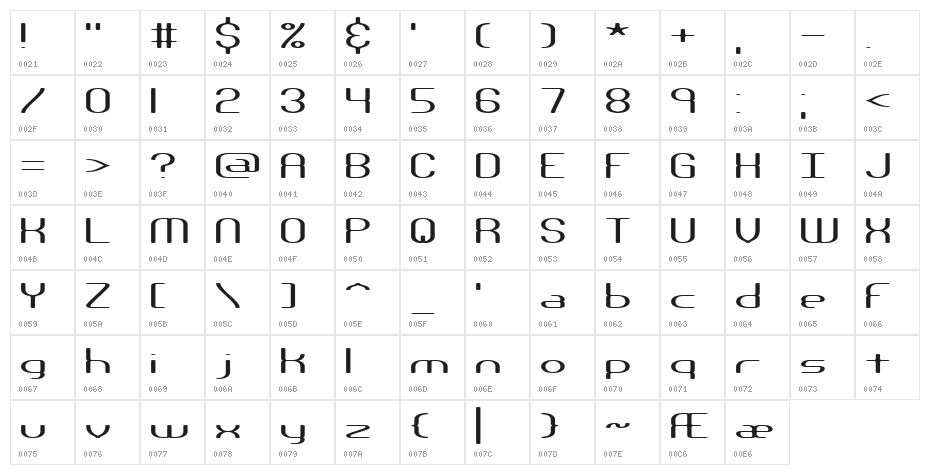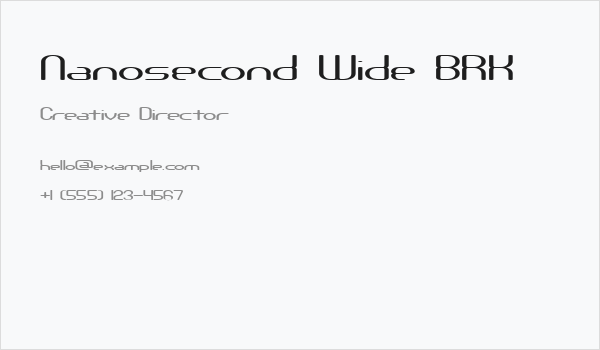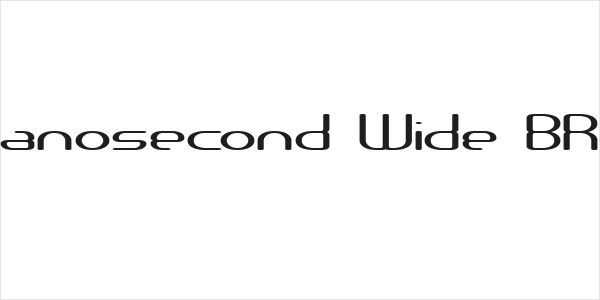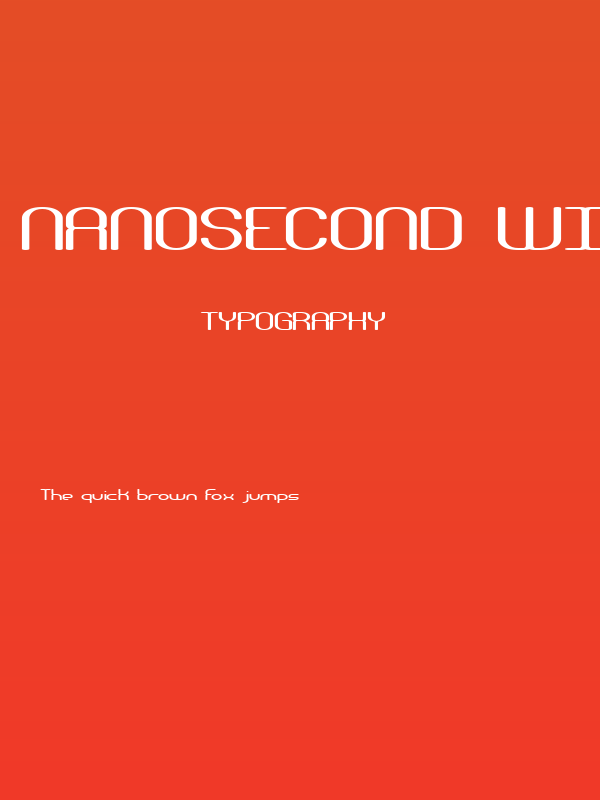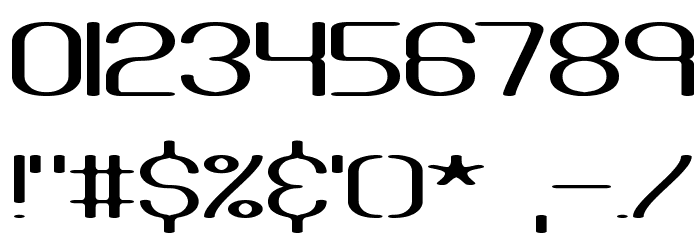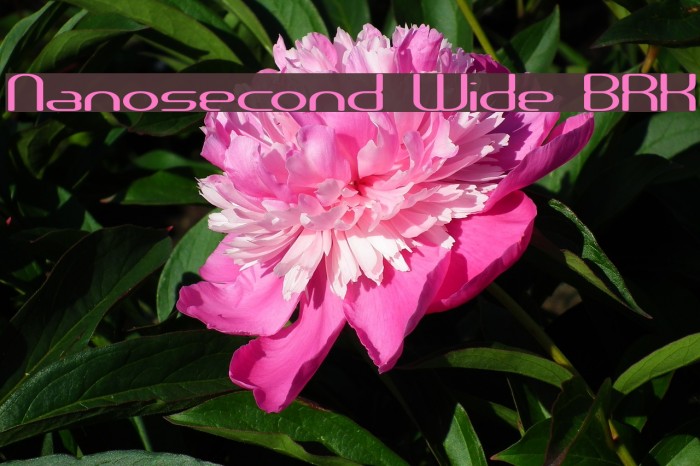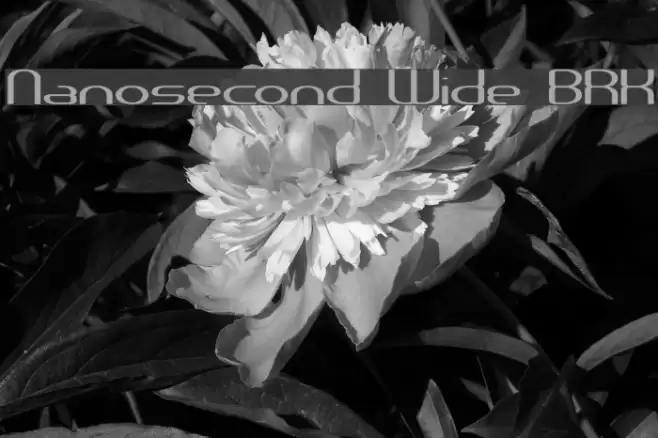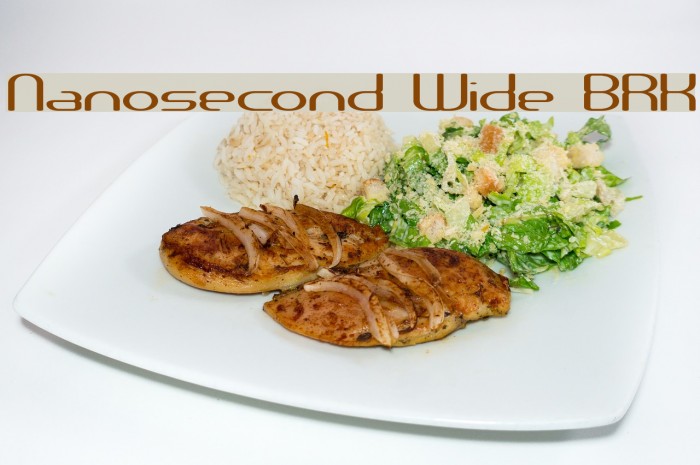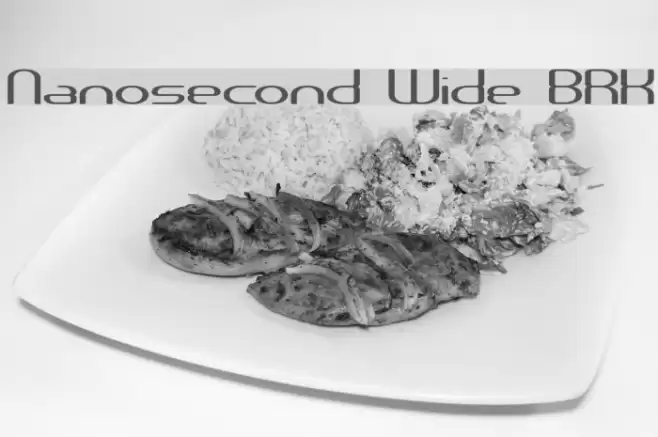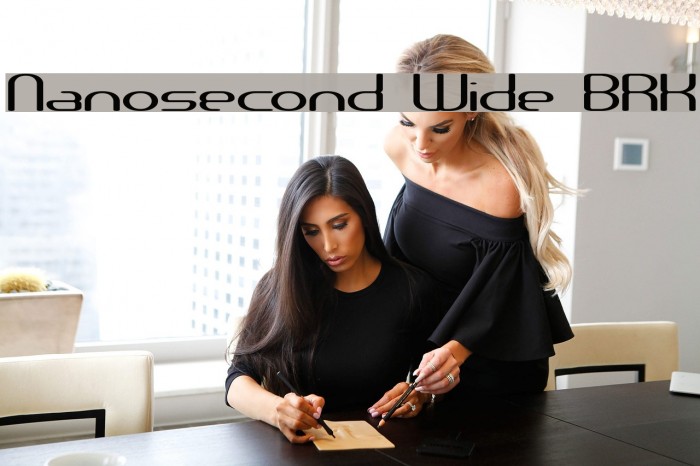
Nanosecond Wide BRK Font
✎ Futuristic
| Breite | Expanded |
| Gesamtstil | Futuristic and clean |
| Anwendungsfall | Headlines, Logos, Digital interfaces |
| Vorgeschlagene Projekte | Ideal for technology branding, modern web design, digital interfaces, and futuristic-themed projects. |